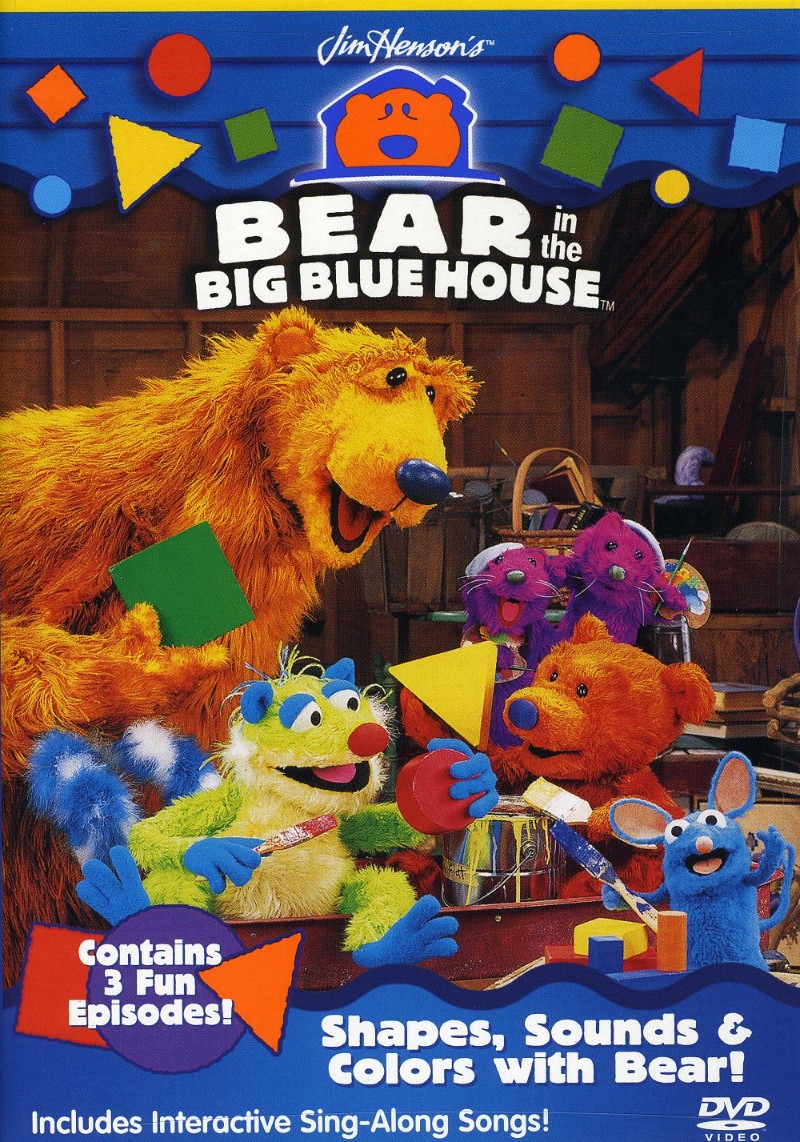
Bear in the Big Blue House Font
AdventureBear in the Big Blue House is a children's television show that follows the adventures of a bear as he lives in a blue house with his friends and teaches young viewers about life and social skills.
The logo of the "Bear in the Big Blue House" TV series features Block Heavy for its title lettering. The Block font was designed by Hermann Hoffmann in 1908 and is characterized by bold characters and rounded edges.